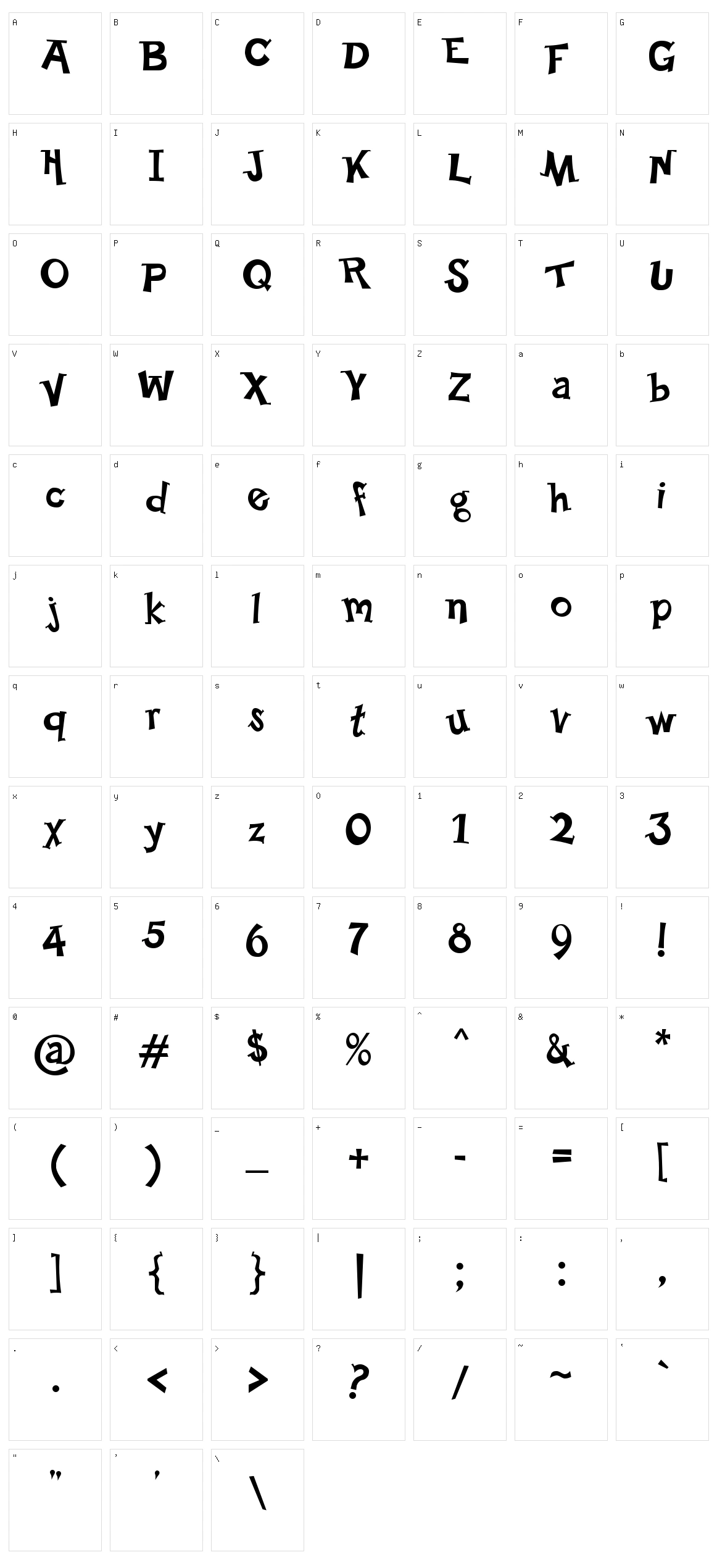
Happy Serif
The free font Happy Serif is carefully designed by Essqué Productions, showcasing a thoughtful balance of creativity and usability and falls under the Cartoon font style. When you download the ZIP file, it contains only 75.48 KB of font files, making it lightweight and quick to download. Please review the license details below to understand permitted usage and distribution rights. If license information is not available, we recommend using this font for personal projects only or contacting the author directly for commercial usage permissions.